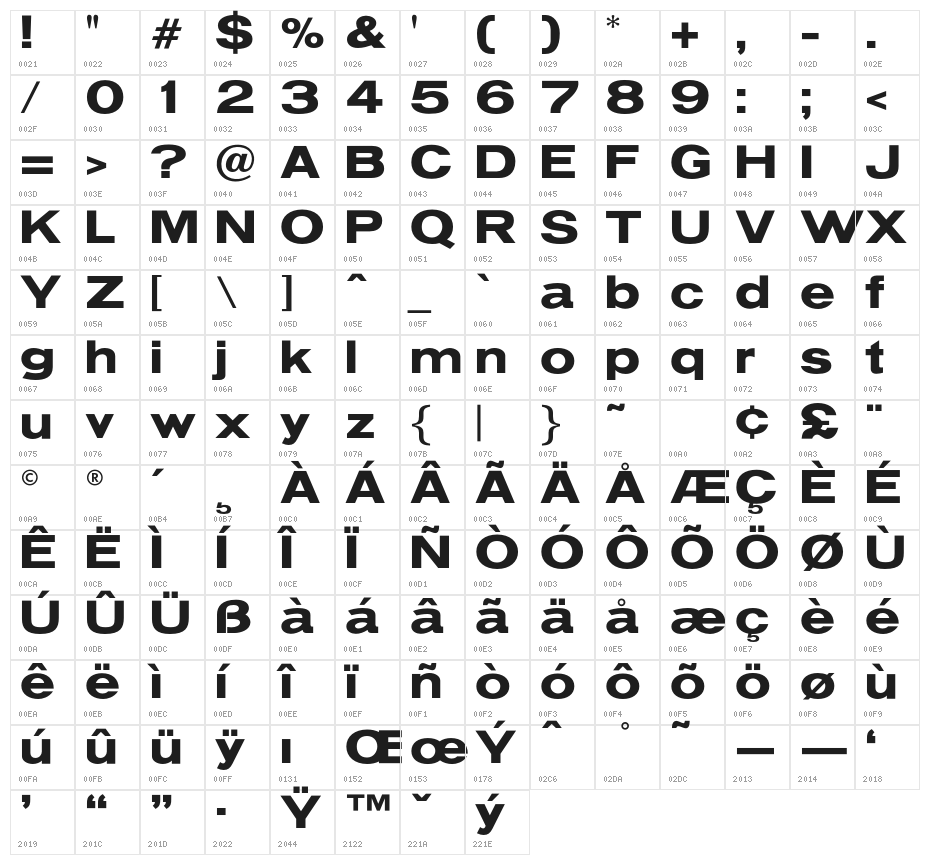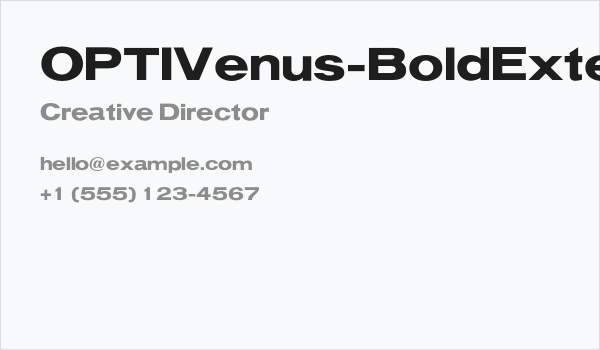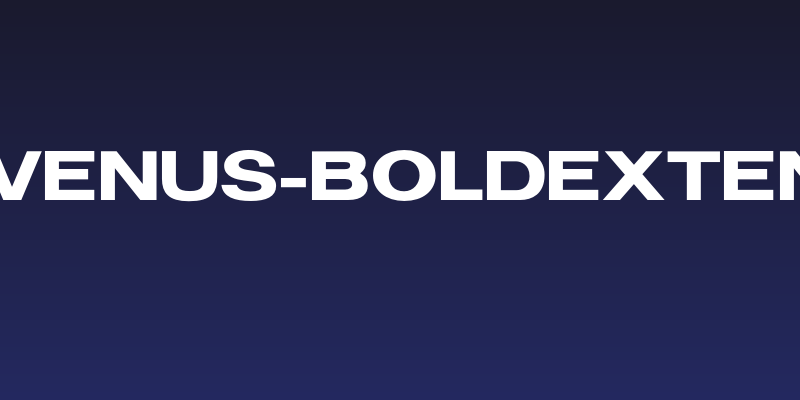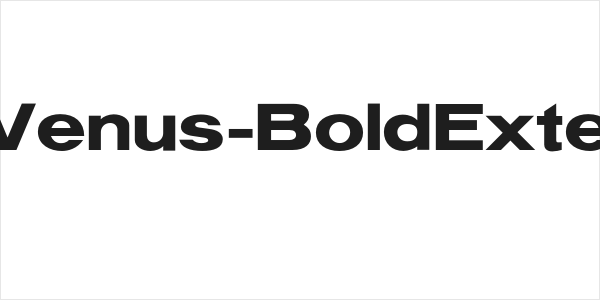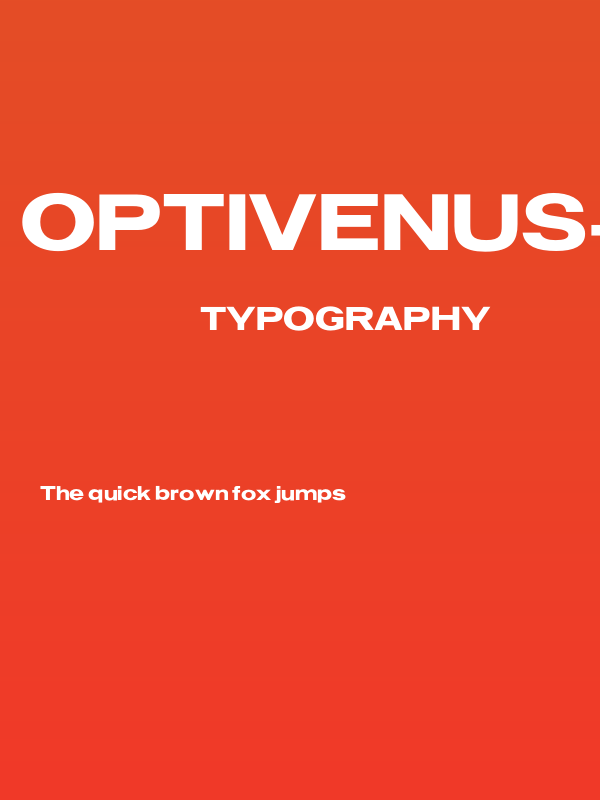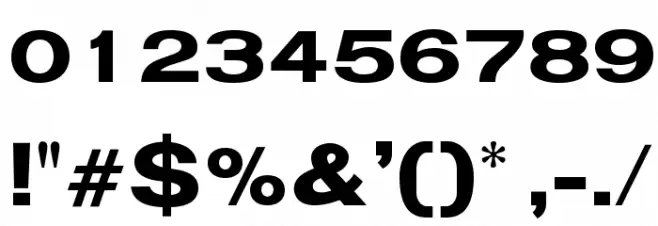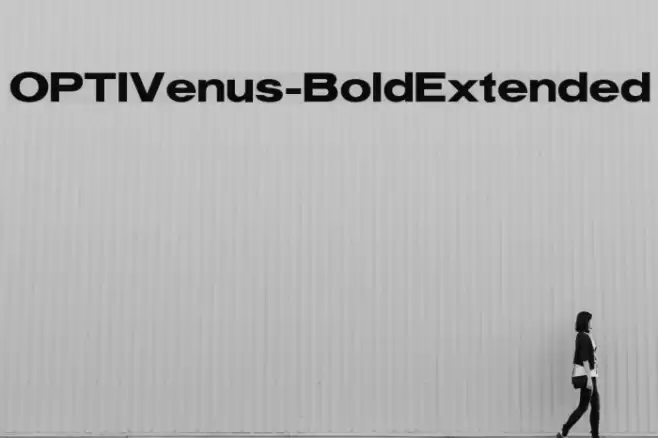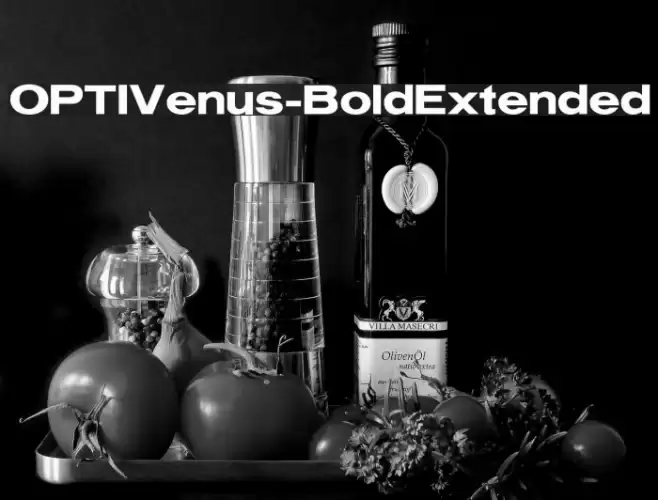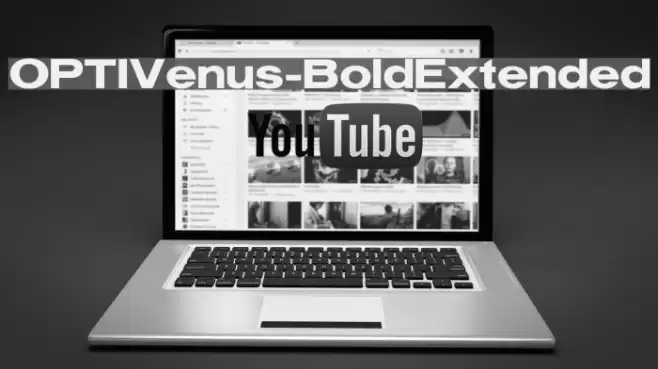
OPTIVenus-BoldExtended Font
OPTIVenus-BoldExtended Description
This font features a bold and extended style, characterized by thick, uniform strokes that convey a strong and assertive presence. The uppercase letters are particularly striking, with a wide stance that enhances readability and impact. The lowercase letters maintain a consistent weight, ensuring a cohesive look across different text sizes. The numerals are clear and robust, making them suitable for both display and informational purposes. Special characters are well-defined, adding versatility for various design needs. Overall, this font's boldness and extended width make it ideal for projects that require a commanding and modern aesthetic.
| Proposed Projects | Ideal for headlines, posters, branding, and any project requiring a strong visual impact. |